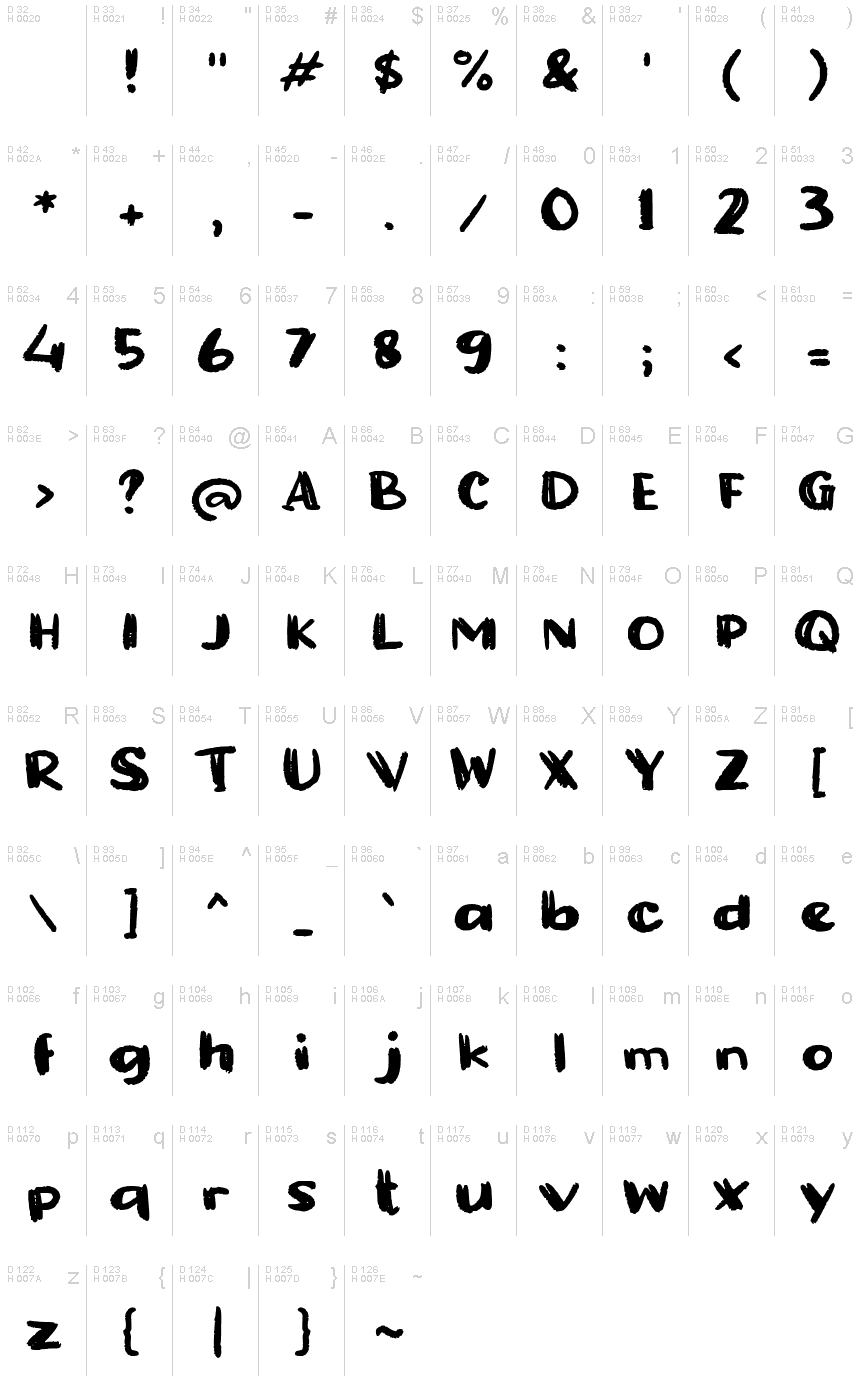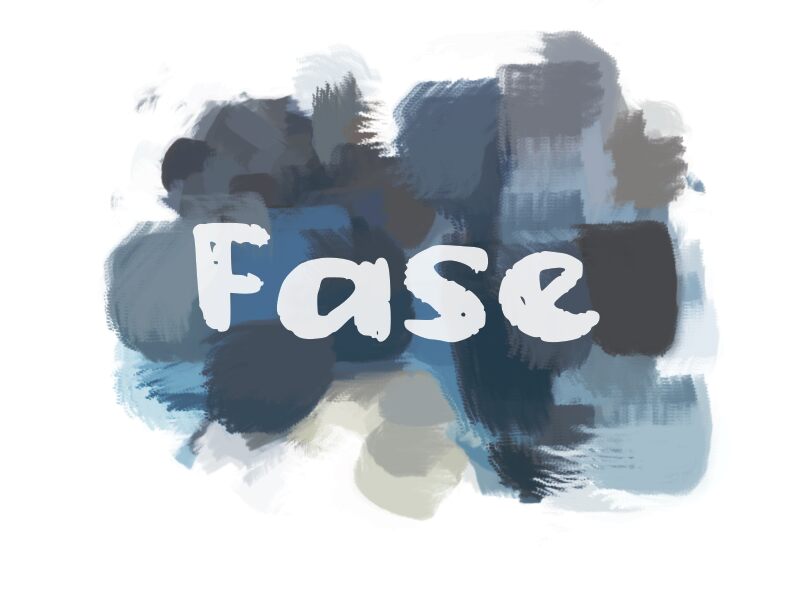
Fase
Fase, a captivating brush font by wep, adds an extra-bold touch to your designs. With its semi-expanded width, Fase stands out in headlines and logos, making it perfect for projects that require a bold and expressive statement.
Its artistic strokes and unique texture bring life to invitations, posters, and packaging designs. Let Fase be the bold brush font that amplifies your brand identity or adds a touch of creativity to your personal projects.